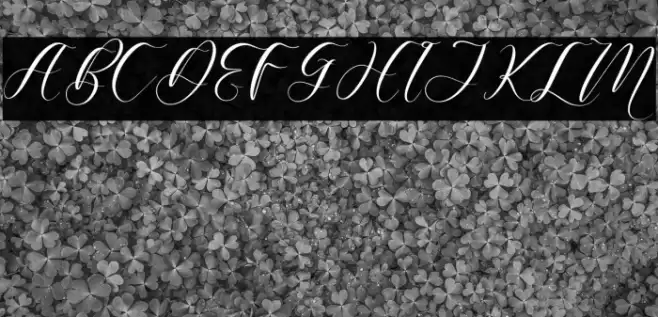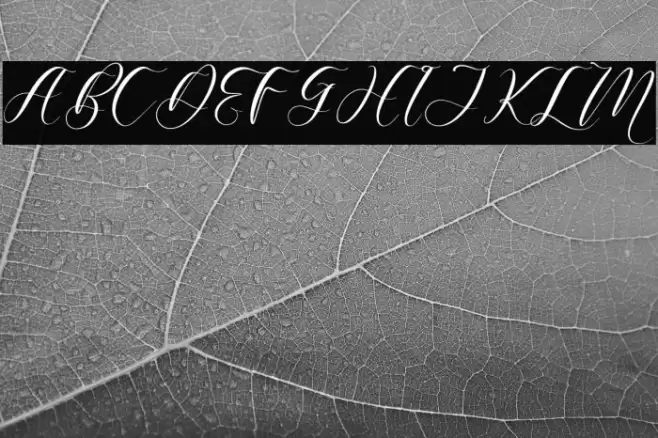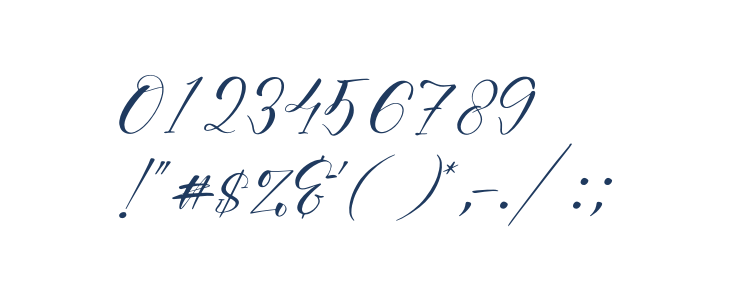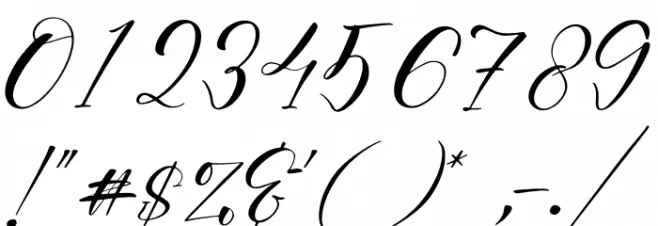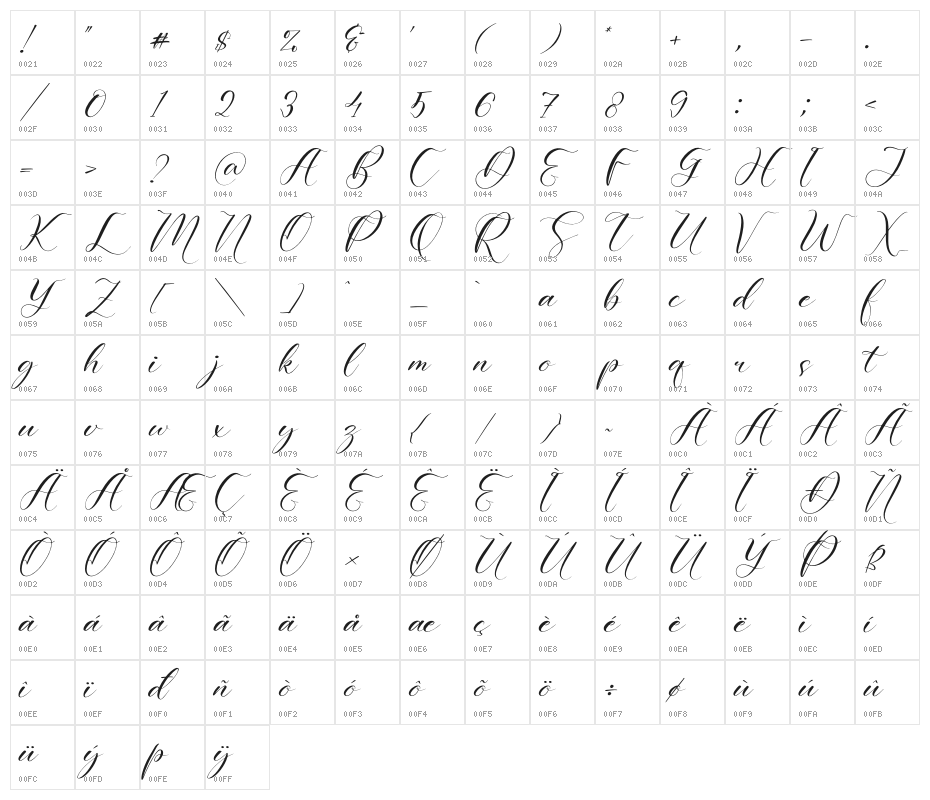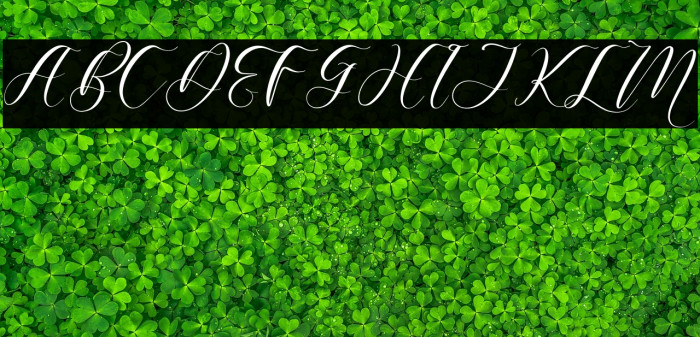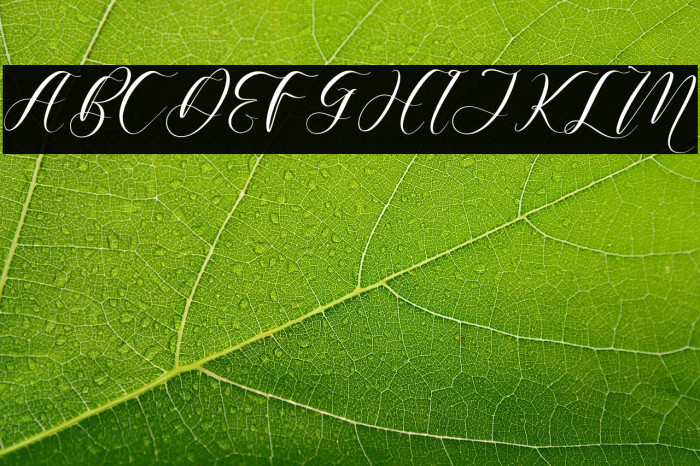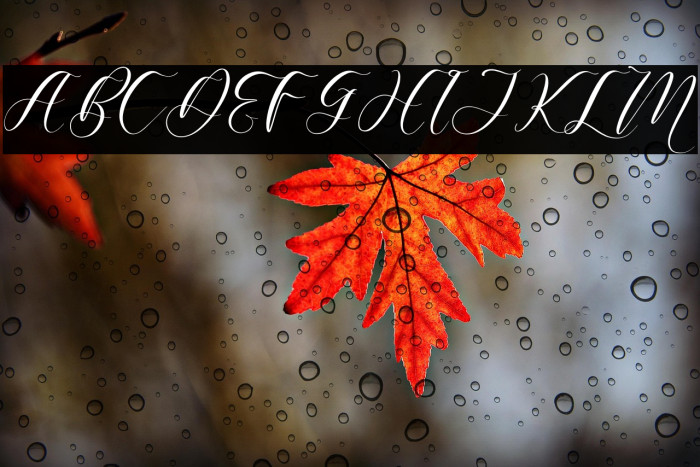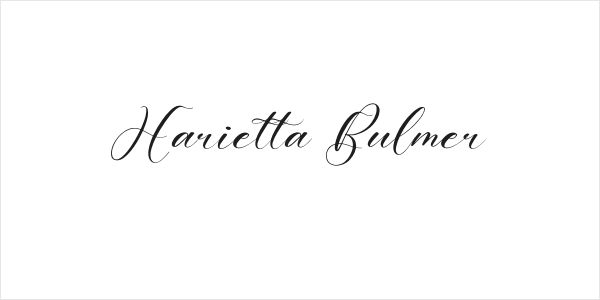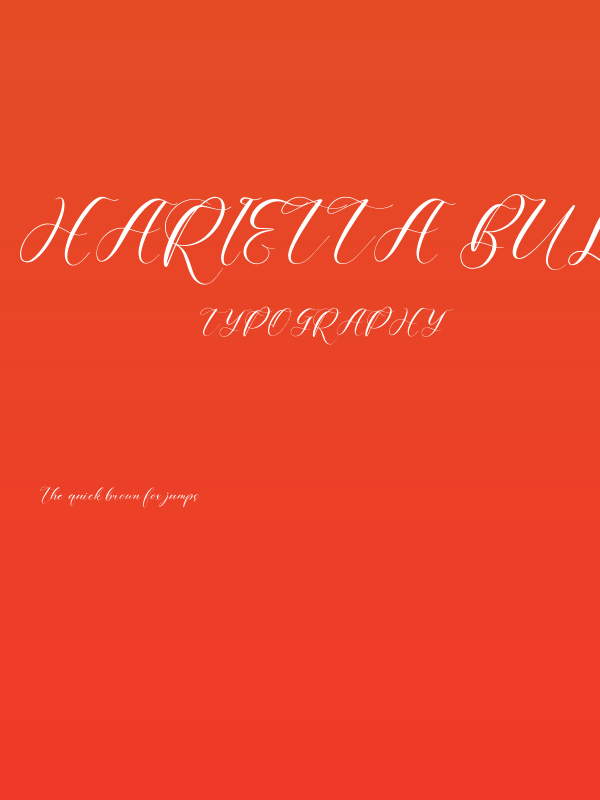
Harietta Bulmer Font
Harietta Bulmer Description
This elegant script font features flowing, interconnected letters with a classic calligraphic style. The uppercase letters are particularly ornate, with sweeping curves and flourishes that add a touch of sophistication. The lowercase letters maintain a consistent flow, enhancing readability while preserving the decorative nature of the font. The numerals are stylishly designed, complementing the overall aesthetic. Special characters are included, matching the script's elegant and artistic design. This font is perfect for projects that require a touch of elegance and sophistication.
An elegant script font with flowing, interconnected letters and classic calligraphic style from Uncategorized fonts.
- Font: Harietta Bulmer
- Proposed Projects: Wedding invitations, luxury branding, elegant stationery, and decorative quotes.
- Overall Style: Classic
- Use Case: Logos, Invitations, Decorative text